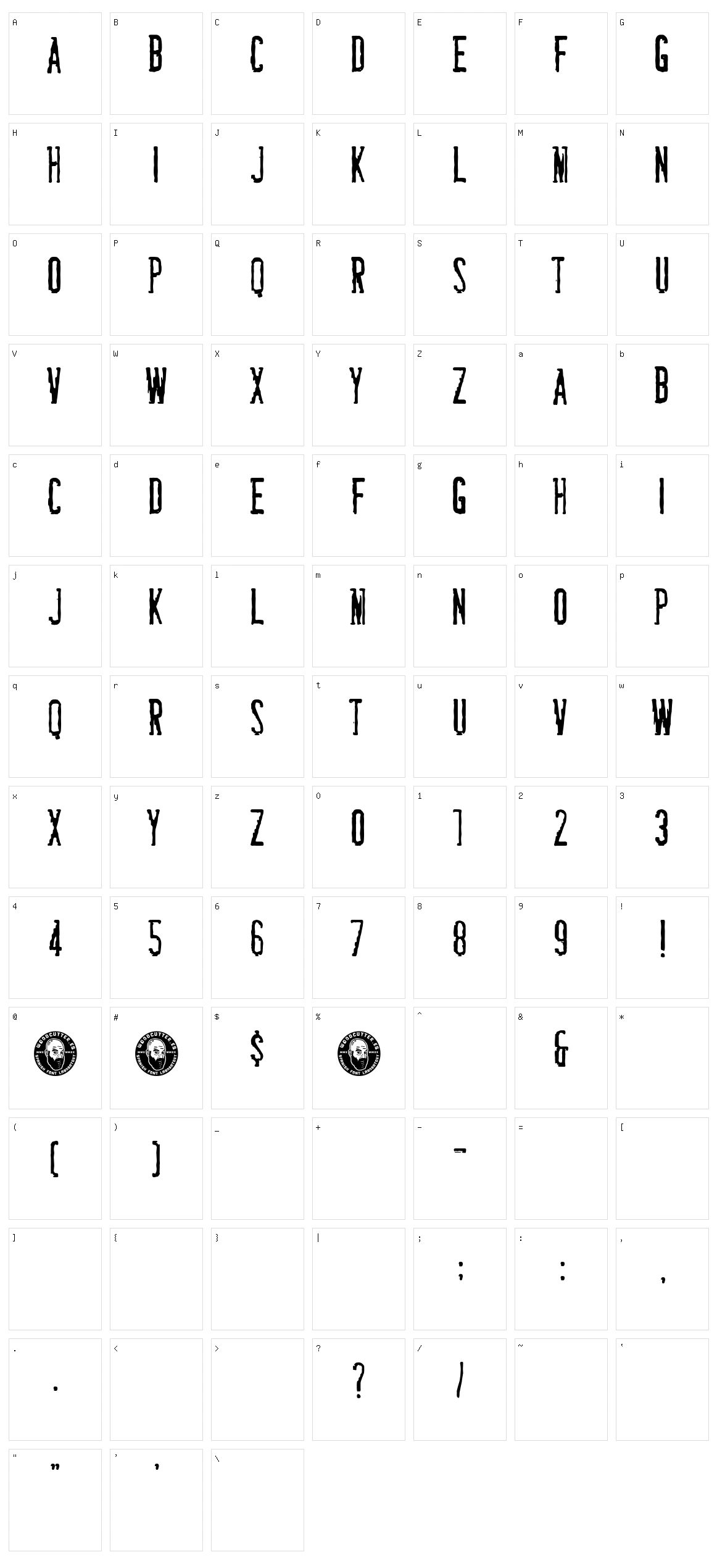
The free font La Ramera de Barcelona is carefully designed by Woodcutter, showcasing a thoughtful balance of creativity and usability and falls under the Destroy font style. When you download the ZIP file, it contains only 60.92 KB of font files, making it lightweight and quick to download. Please review the license details below to understand permitted usage and distribution rights. If license information is not available, we recommend using this font for personal projects only or contacting the author directly for commercial usage permissions.